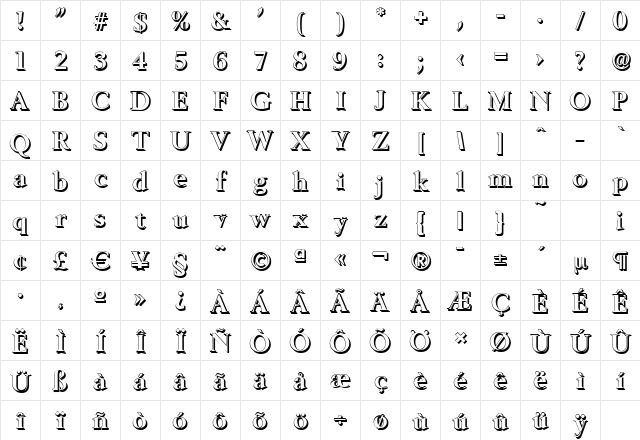
BelfastShadow Bold Free Font
BelfastShadow Bold
BelfastShadow Family
Design Context for BelfastShadow
BelfastShadow is built around its visual character rather than neutral utility - its distinctive forms are designed to make an impression at display sizes. Its bold stroke weight gives it real presence on the page.
Font Pairing: Pair with a clean neutral sans-serif for body copy to let BelfastShadow's character lead without overwhelming the composition.
Pro Tip: Use BelfastShadow exclusively at display sizes - it was designed to be seen, not read at length. Let a neutral companion handle body copy.